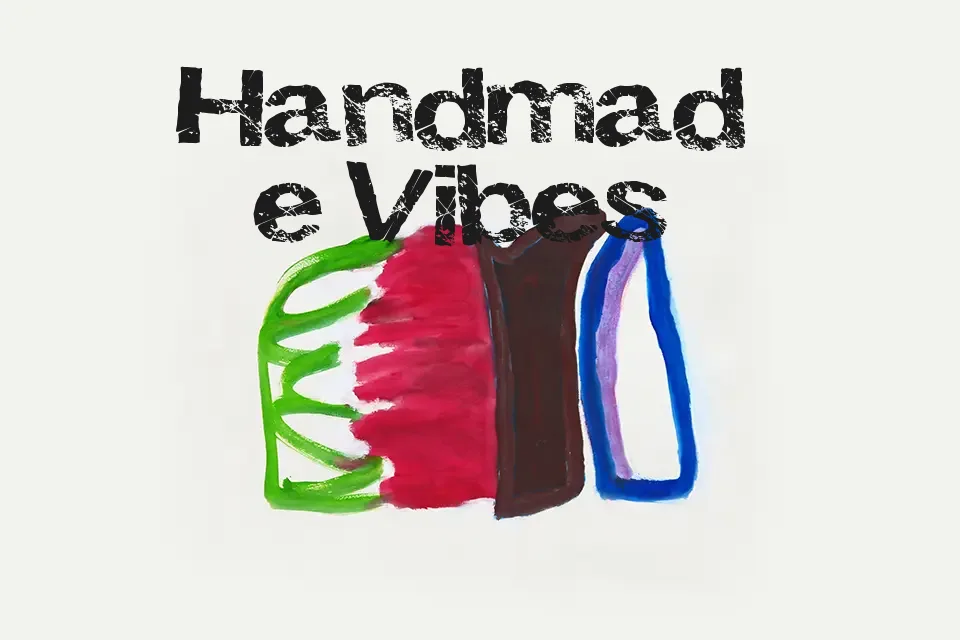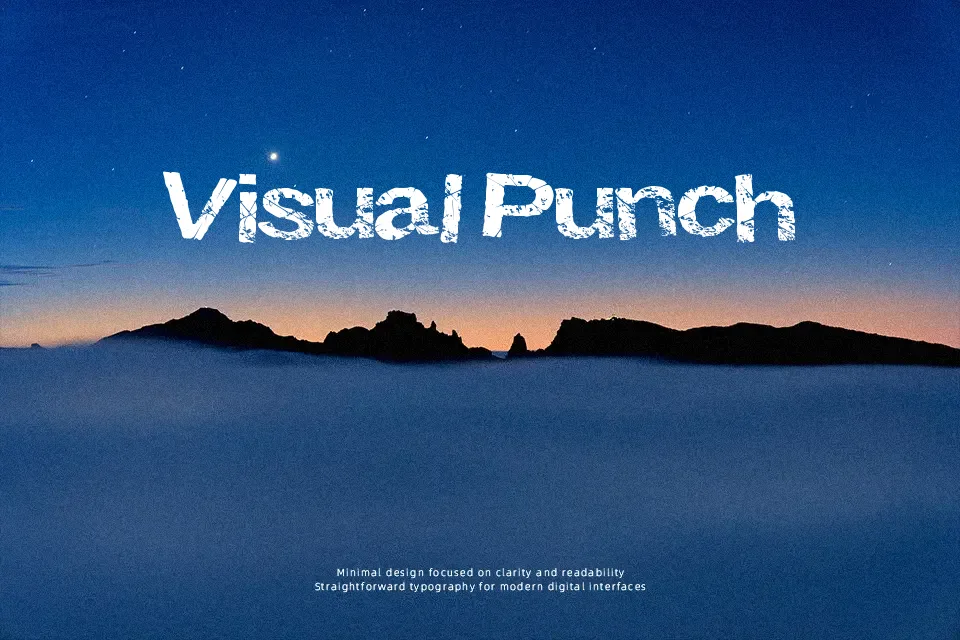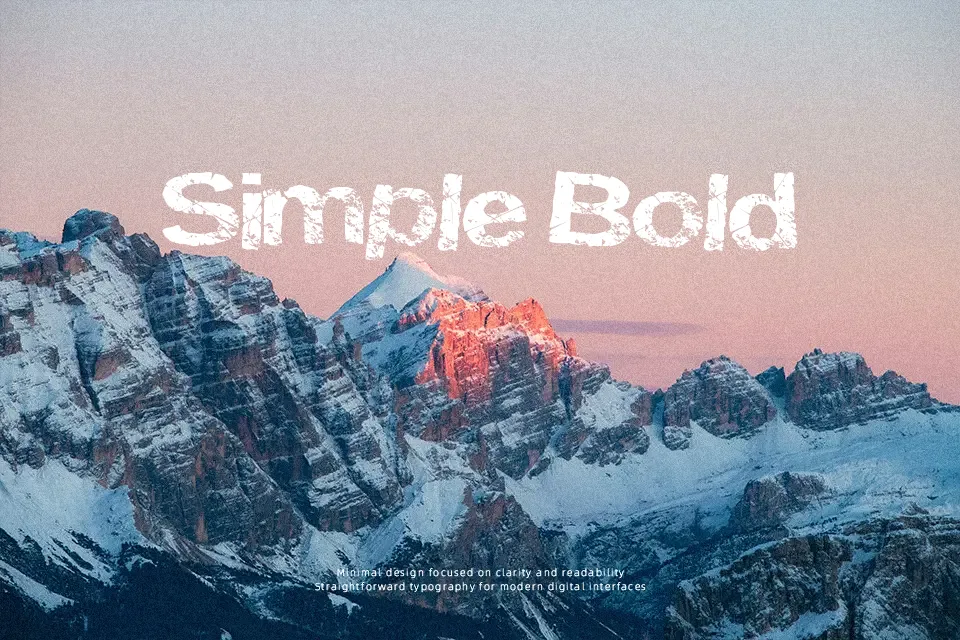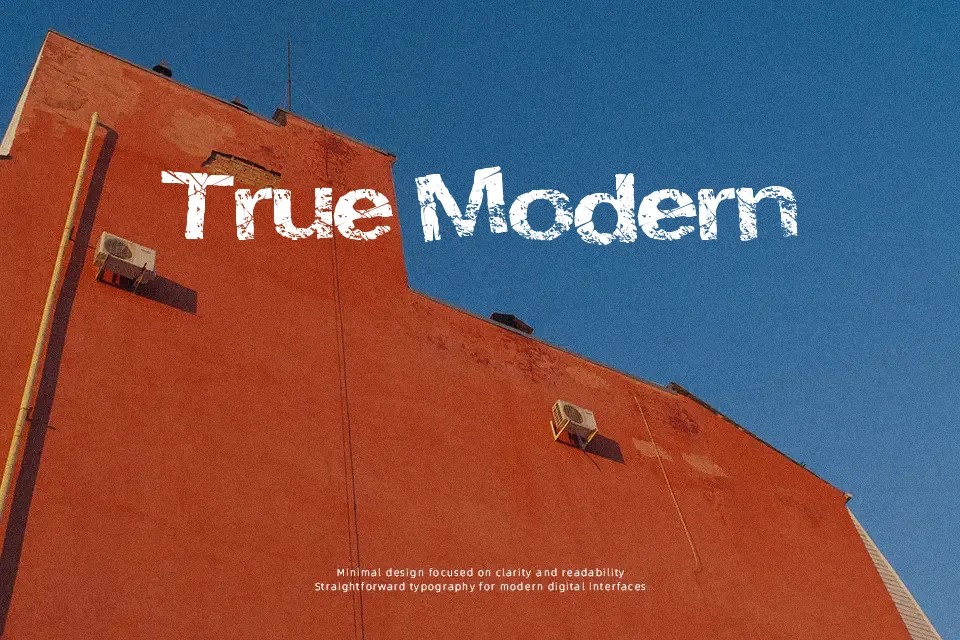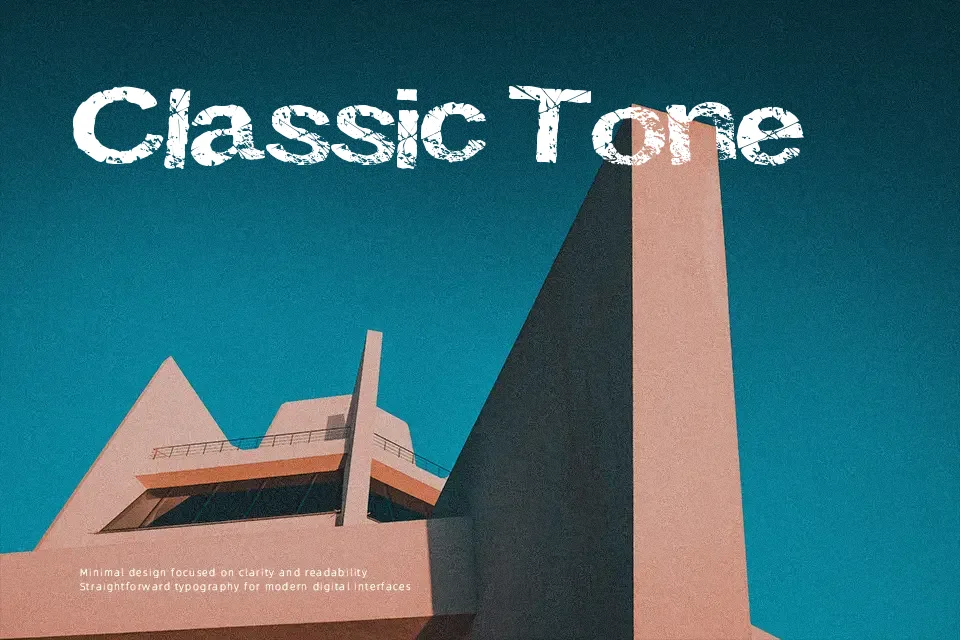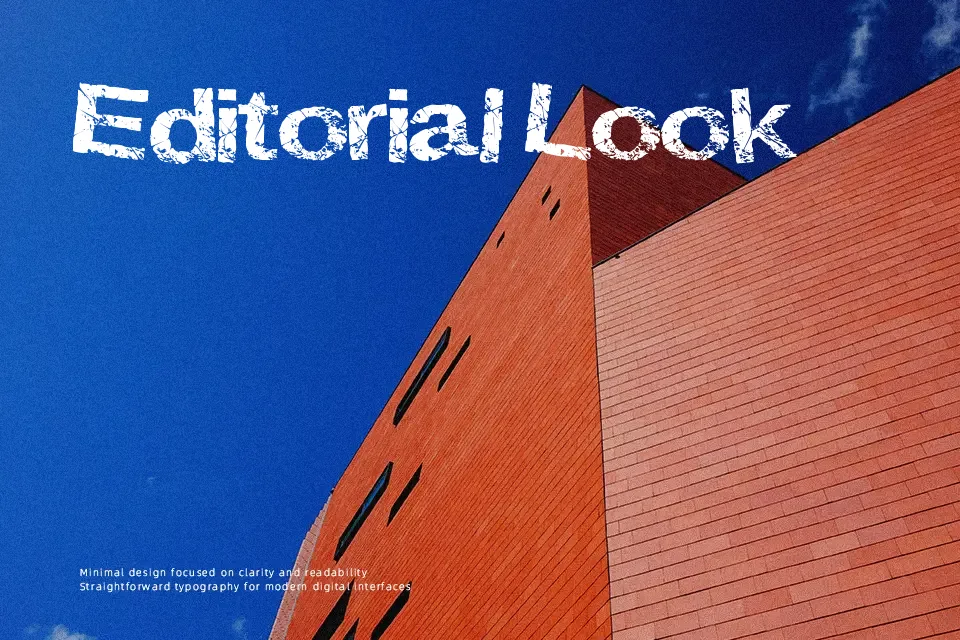
Krusty Signs Font
Rough edges, irregular stroke widths, and slightly tilted letterforms give Krusty Signs Font a hand-painted signboard feel. The spacing is intentionally uneven, adding to its casual, almost chaotic rhythm that reads as humorous and lively rather than polished. It leans strongly into a cartoon and signage aesthetic, making it suitable for playful storefront graphics, themed event posters, or children-focused branding. However, readability drops quickly at smaller sizes, and the exaggerated forms can feel distracting in serious contexts. It works best when used sparingly as a headline font rather than for extended text blocks.
kids event posters
cartoon-style branding
themed shop signage
playful social media graphics
formal business materials
minimalist design systems
small-size readability
Perfect for branding, headline, and kids, with a creative and cartoon style.